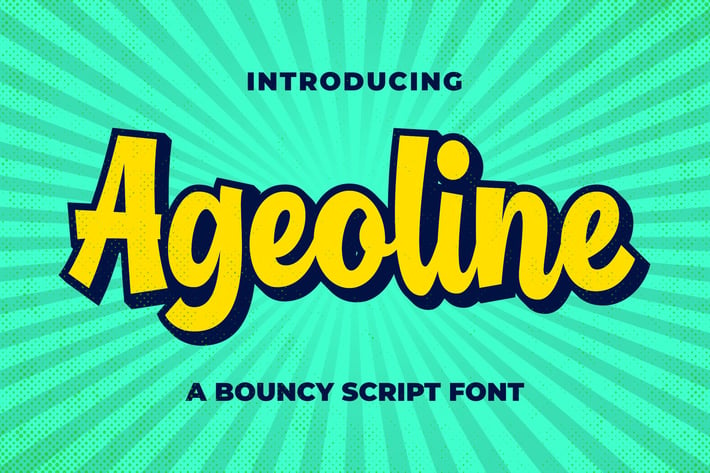
Ageoline Bouncy Script Font
Introducing of our new product the name is Ageoline Bouncy Script Font, Ageoline inspired by Bouncy Calligraphy style with a fun theme very good for Logotype, kids poster, flyer, childrenbook, cartoon, comic etc